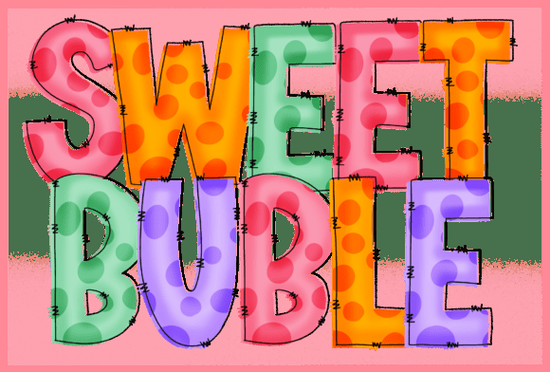
If you've ever needed a font that feels playful, rounded, and instantly cheerful, the Sweet Bubble Font is worth a close look. This chubby bubble letter design comes with a polka dot pattern and a stitched outline effect, giving each character a fun, dimensional quality that stands out on any project. Whether you're designing party invitations, kids' merchandise, or social media graphics, this font brings a lighthearted energy that's hard to miss.
What Makes Sweet Bubble Font Different From Other Bubble Fonts?
Plenty of colorful and decorative fonts exist, but not all of them come with built-in texture and detail. What sets this one apart is the combination of three design elements working together:
- Chubby, rounded letterforms that feel soft and approachable
- Polka dot patterns filling each letter for a playful, textured look
- Stitched outline effects that add a handmade, craft-like dimension
These details mean you don't need to layer extra textures or decorations on top of your text. The design does most of the work for you, saving time during the creative process.
Who Is This Font Best For?
This typeface works well for anyone creating designs that need a fun, eye-catching element without looking cluttered. Here are some specific use cases:
- Print-on-demand sellers designing t-shirts, mugs, tote bags, and stickers for a younger audience or a lighthearted brand
- Party planners and invitation designers who need bold, celebratory typography for birthdays, baby showers, and school events
- Small business owners running kids' clothing brands, toy shops, or bakery packaging
- Crafters working on scrapbooking, card-making, or Cricut and Silhouette projects
- Social media managers creating Instagram posts, YouTube thumbnails, or story graphics that need to pop on a small screen
If your audience includes children, parents, or anyone who appreciates a whimsical aesthetic, this font fits naturally into your toolkit.
How Does It Compare to Other Playful Fonts?
If you like bold and colorful typography, you might also want to explore the Fa Thor font style. It takes a different approach with a more vibrant, multi-color design that works great for headers and logos. Meanwhile, the Sweet Bubble font leans into softness and charm, making it better suited for designs where warmth and friendliness matter more than raw impact.
Think of it this way: bold display fonts shout for attention, while bubble fonts like this one invite attention through their playful shape and texture. Both have their place, but they serve different moods.
What Types of Projects Work Best With Bubble Letter Designs?
Bubble fonts tend to shine in projects where readability at a glance matters and where the overall tone is casual or festive. Some examples include:
- Event posters and flyers for school functions, fairs, or community events
- Product labels for candy, snacks, or children's products
- Book covers for children's books or activity workbooks
- Greeting cards with a handmade or craft-inspired feel
- Website banners for seasonal sales or kid-focused promotions
The stitched outline detail in this particular font adds a layer of visual interest that plain bubble fonts often lack. It gives the letters a slightly hand-crafted quality, which pairs well with craft-oriented brands and DIY projects.
Also, keep in mind that decorative fonts like this one work best at larger sizes. At very small text sizes, the polka dot details and stitched edges may become hard to read. Test your design at the actual size it will appear on your final product.
Quick Checklist Before You Start Designing
- Test the font at the size your project requires
- Pair it with a clean, simple body font for contrast
- Use colors that complement the playful style think bright pastels or bold primaries
- Check how the stitched outline looks on both light and dark backgrounds
Tip: Try using this font for headlines or short phrases only. Pair it with a straightforward sans-serif for longer text blocks so your design stays easy to read while keeping that fun, bubbly personality intact.